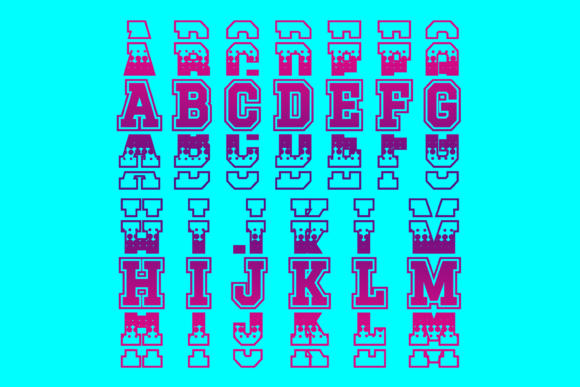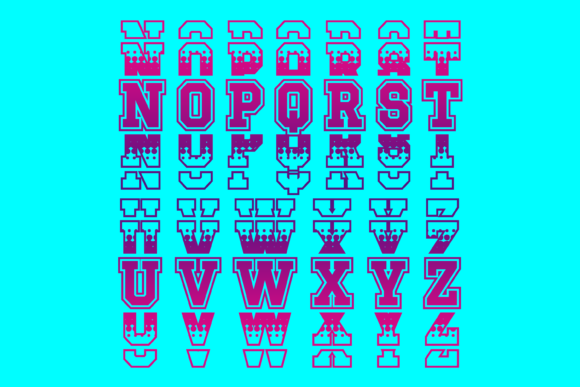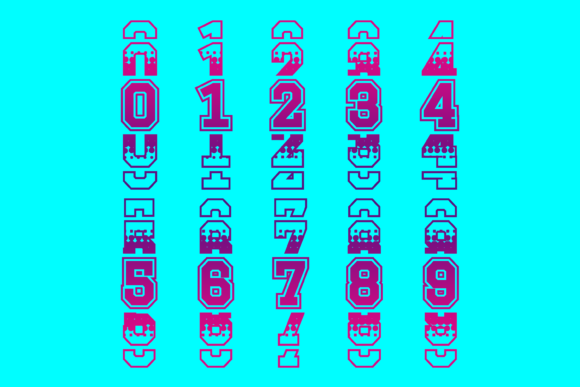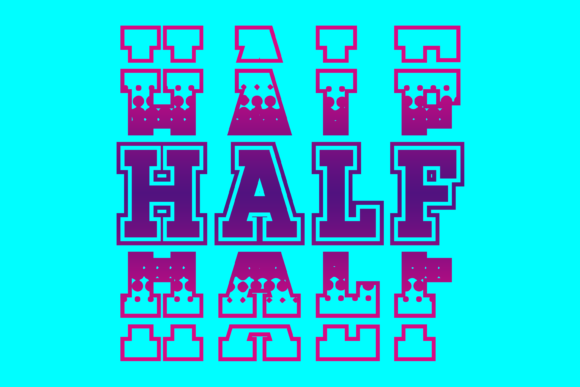
Introducing Half Font: The Coolest Display Font for Your Creative Projects
Half is an incredibly cool display font. Whether you use it for custom designs, DIY crafts, or just any creation that requires a lovely touch, this font will be an amazing choice! In this article, we’ll dive into the world of Half Font, exploring its features, benefits, and uses, making it a must-have for designers and crafters alike.
What is Half Font?
Half Font is a unique and stylish display font designed to add a touch of elegance and sophistication to your creative projects. Its distinctive design makes it perfect for a wide range of applications, from custom designs and DIY crafts to signage, branding, and digital media.
Key Features of Half Font
- Unique Design: Half Font boasts a distinctive design that sets it apart from other fonts. Its stylish and elegant look makes it perfect for adding a touch of sophistication to your projects.
- Versatility: This font is incredibly versatile and can be used for a wide range of applications, including custom designs, DIY crafts, signage, branding, and digital media.
- Easy to Read: Despite its unique design, Half Font is easy to read, making it perfect for use in both digital and print media.
- Customizable: Half Font is highly customizable, allowing you to adjust its size, color, and style to suit your project’s needs.
Benefits of Using Half Font
So, why should you choose Half Font for your creative projects? Here are just a few benefits of using this amazing font:
- Adds a Touch of Elegance: Half Font adds a touch of elegance and sophistication to your projects, making them stand out from the crowd.
- Enhances Creativity: With its unique design, Half Font can inspire creativity and help you think outside the box.
- Perfect for Branding: Half Font is perfect for branding and can help you create a consistent visual identity for your business or project.
Uses of Half Font
Half Font is an incredibly versatile font that can be used for a wide range of applications, including:
- Custom Designs: Use Half Font to create custom designs for your business or personal projects.
- DIY Crafts: Add a touch of elegance to your DIY crafts, such as handmade cards, gift tags, and scrapbooking.
- Signage: Use Half Font to create eye-catching signage for your business or event.
- Branding: Use Half Font to create a consistent visual identity for your business or project.
- Digital Media: Use Half Font to add a touch of elegance to your digital media, such as social media graphics, blog posts, and presentations.